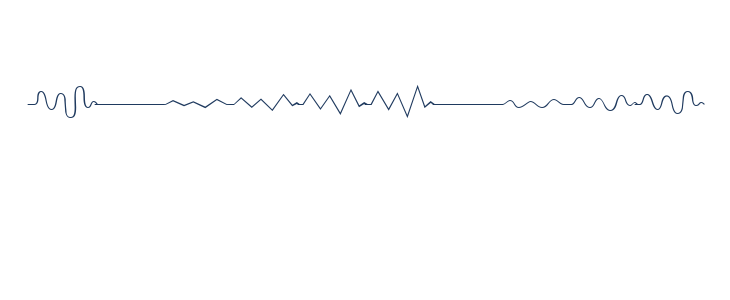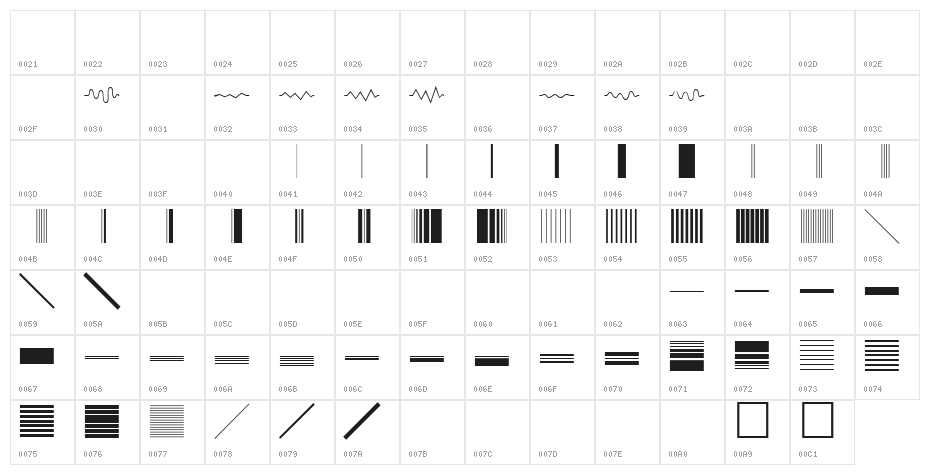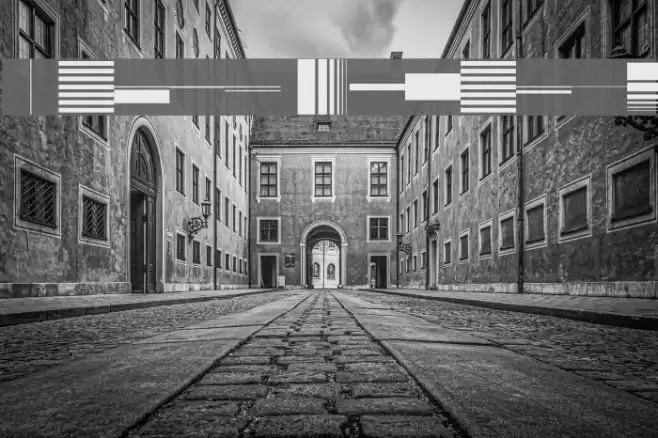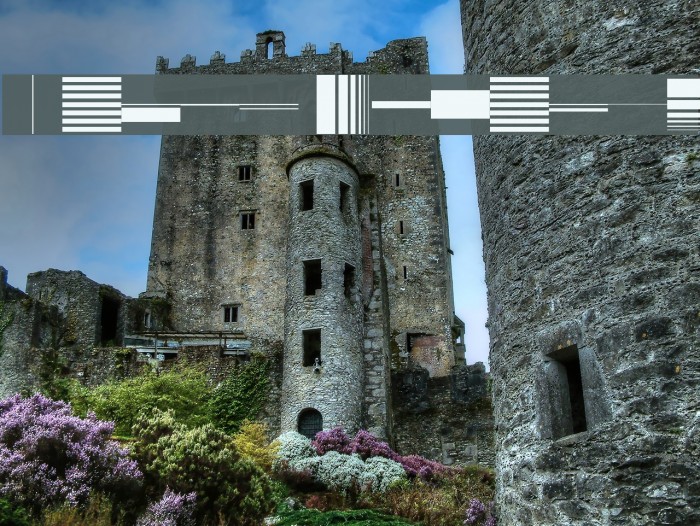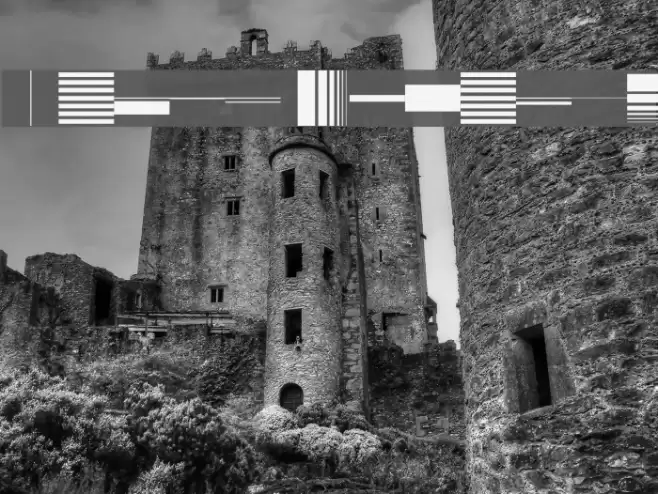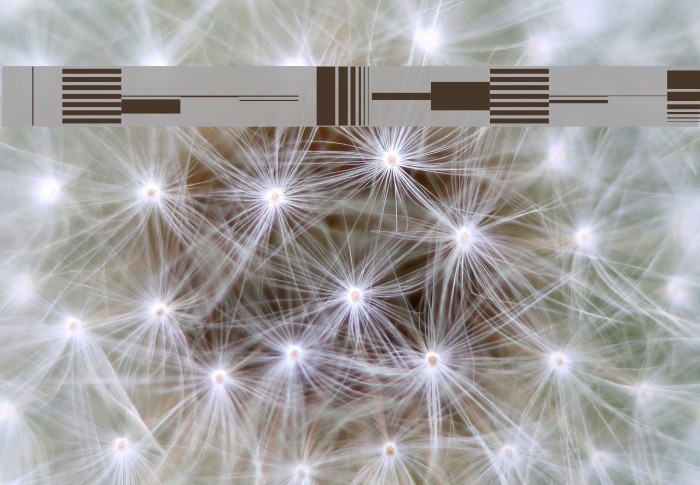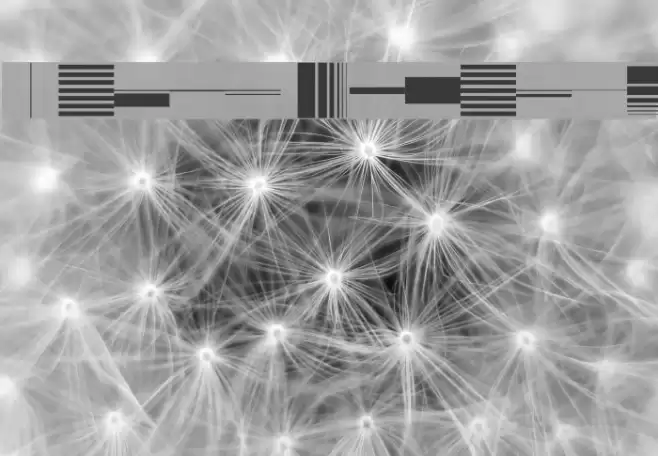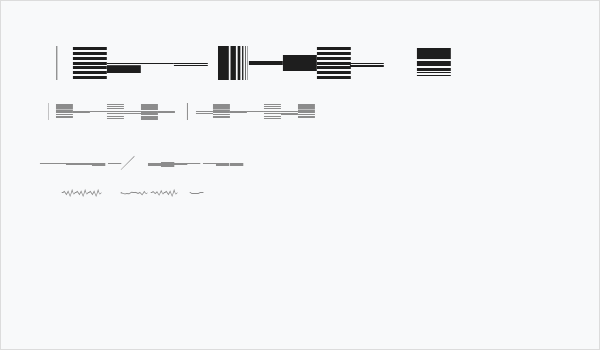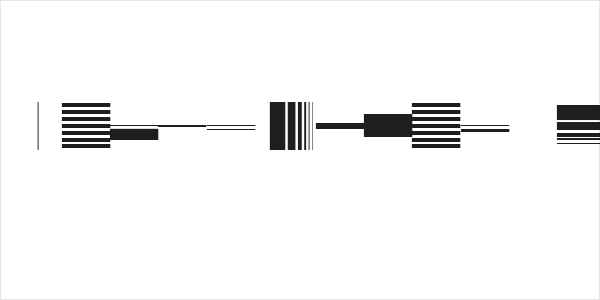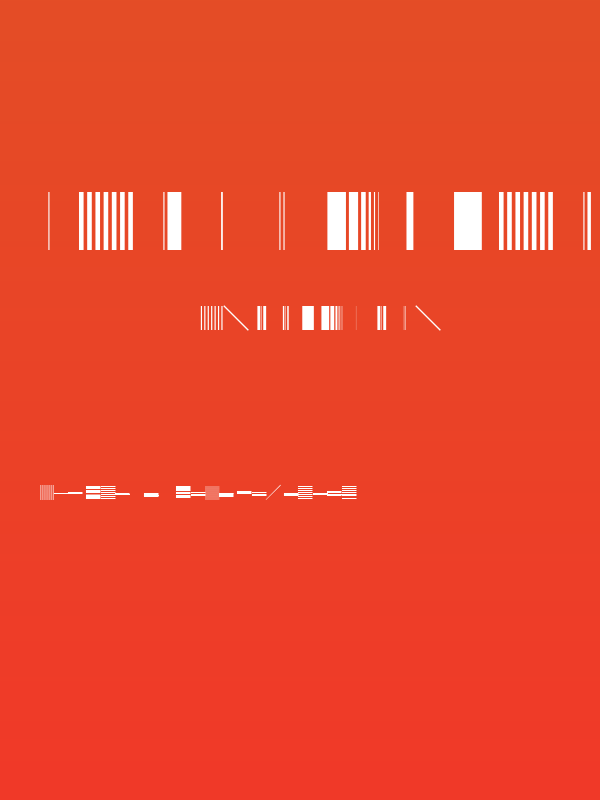
Bunch Regular Font
Bunch Regular Description
This image consists of abstract geometric shapes, lines, and patterns rather than recognizable alphanumeric characters or symbols. It does not represent a usable font.